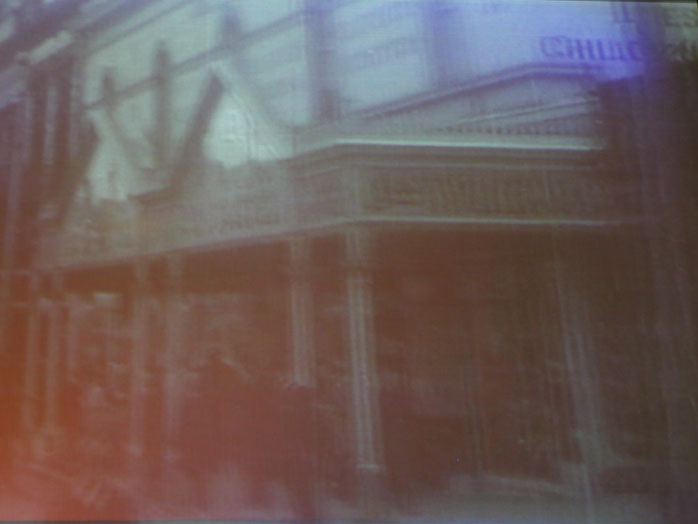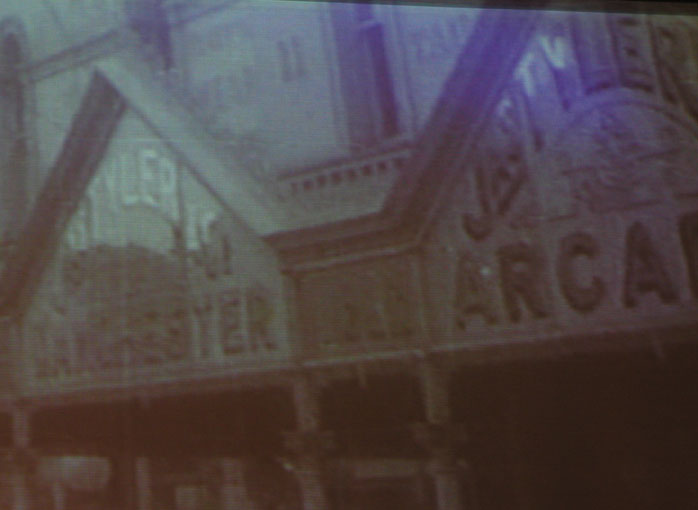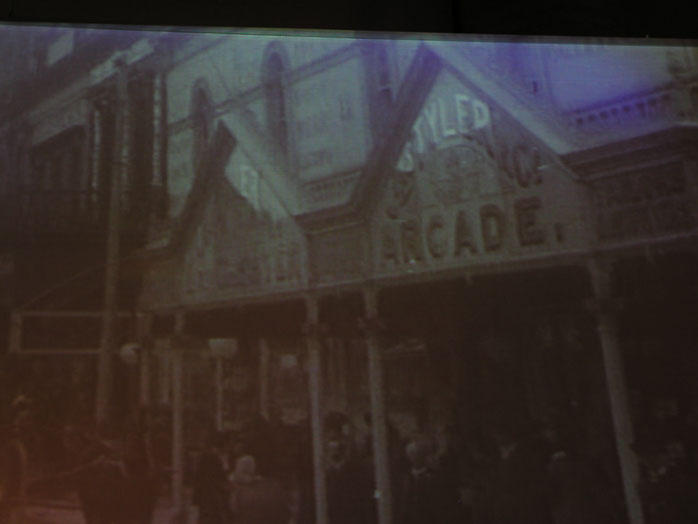
These photos are stills taken from a very early piece of movie footage. It was shot in Ballarat, Victoria depicting a ride through the main street in a cable car.
It earns a place in my archive for this very unusual glass facade on a shopfront verandah. The shop has long gone, and I've never seen any other examples of glass signs like this. You can understand why. In a time when it probably wasn't toughened glass....with pedestrians underneath...
Has anyone else seen any more examples of glass facades signs like this?
I'm fairly confident the lettering is gold leaf judging by the way it reflects, but it's always hard to be 100% certain with old black and white images.
Another thing I note with these old signs is the very common use of abbreviations for first names...In this case Jas. short for James. I think that's worth a study in it's own right.
Cracking stuff.
I have always wondered how stills are made from films on a computer, well done for doing it.
I didn't extract stills from the footage on the computer, although if you want to do that, it's pretty easy with any video editing software.
My method was far less technical...I simply took photos of the screen in the museum while the footage was playing (it was running on an endless loop). That's why there is some blurring and a double image. It flashed past very quickly and it was hard to get a clear crisp shot.
I would have like to get the actual footage and get proper stills from it, but doing that required negotiating with the museum staff which was going to mean making appointments, explaining why I want it, agreeing to their terms for use and possibly paying money. I just photograph these things when and where I find them.